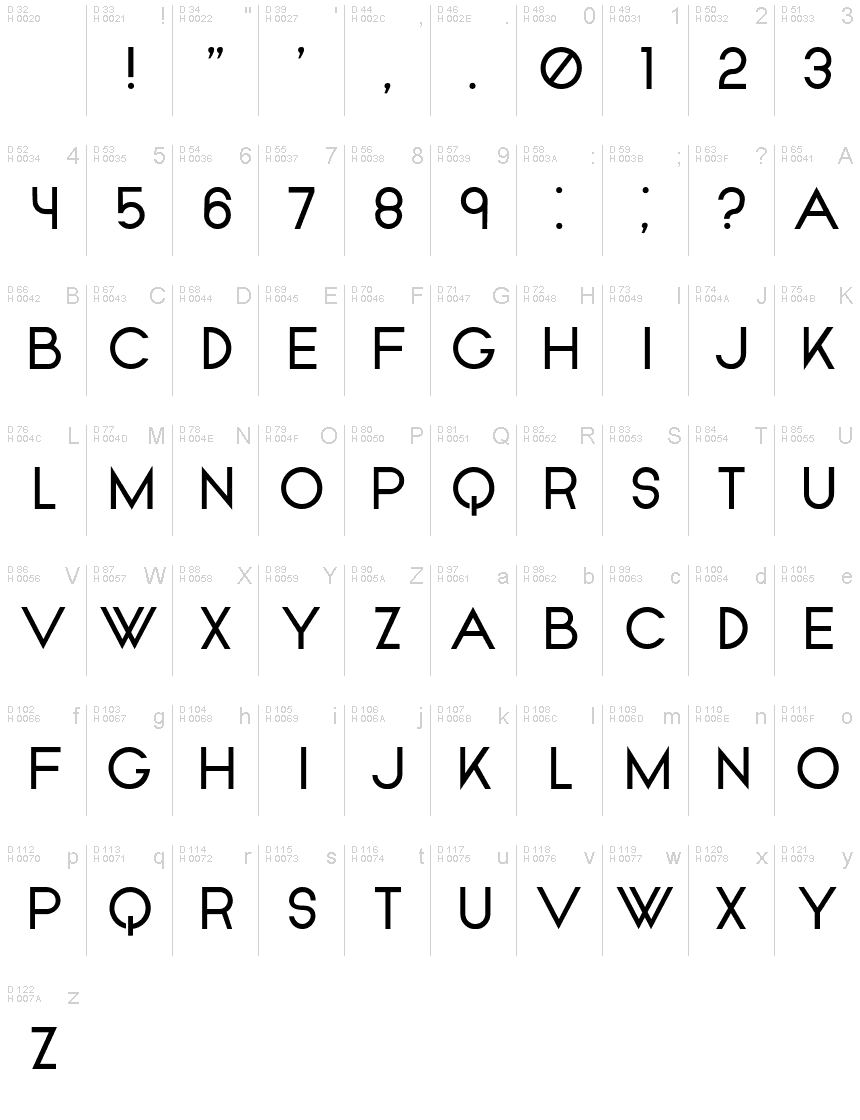
Collective Regular
Collective, a remarkable sans serif font by Vladimir Nikolic, combines elegance with legibility. Its semi-light weight and semi-expanded width create a harmonious balance that adds sophistication to any project.
With its clean lines and contemporary feel, Collective is perfect for minimalist graphic designs, modern websites, and sleek branding materials. Whether you're working on a fashion blog, corporate identity, or editorial layout, this versatile typeface will effortlessly elevate your visual content to new heights of style and professionalism.